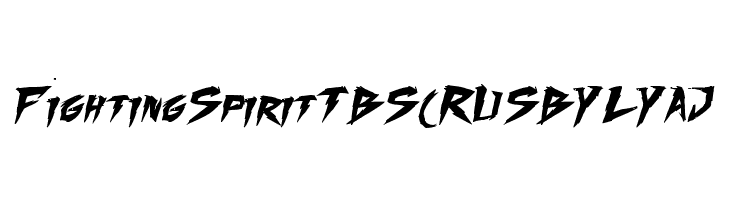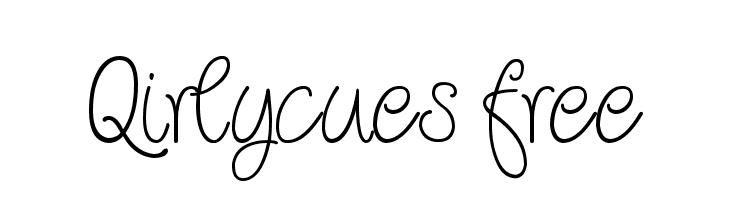
A bold, angular font with sharp edges and a dynamic, rebellious style.
A playful, rounded font with a friendly and approachable style.
A bold, angular font with a futuristic and aggressive style.
A refined serif typeface with thin strokes and a modern elegance.
Bold, italicized font with high contrast and dynamic style.
A playful, handwritten font with smooth curves and consistent strokes.
A fluid and elegant script font with a natural, cursive style.
A classic blackletter font with ornate, angular letterforms.